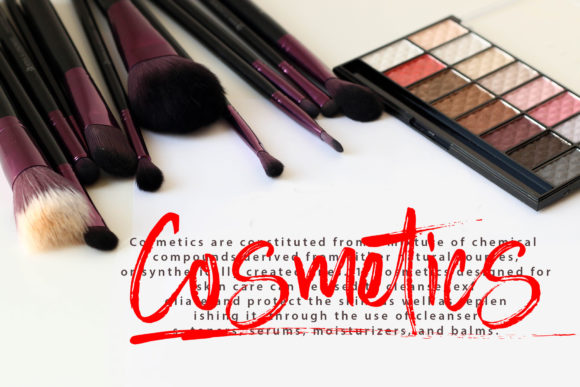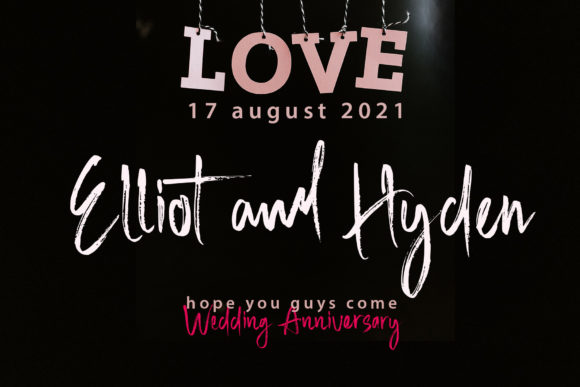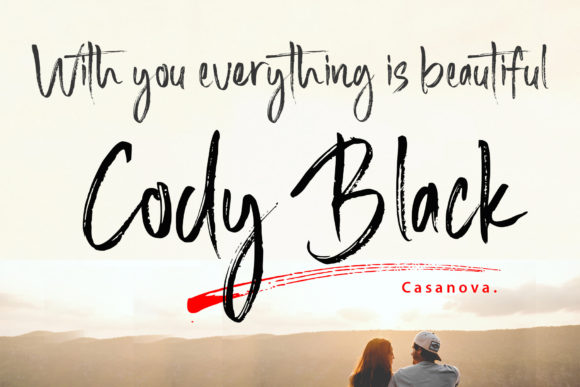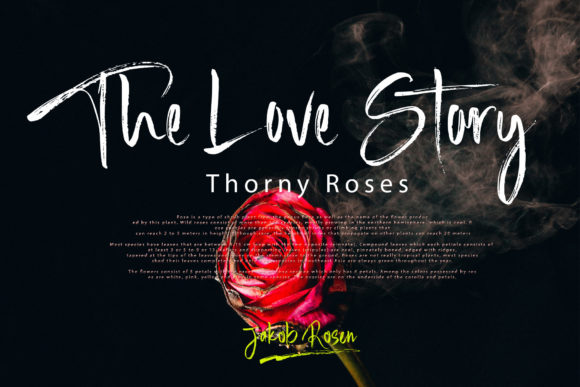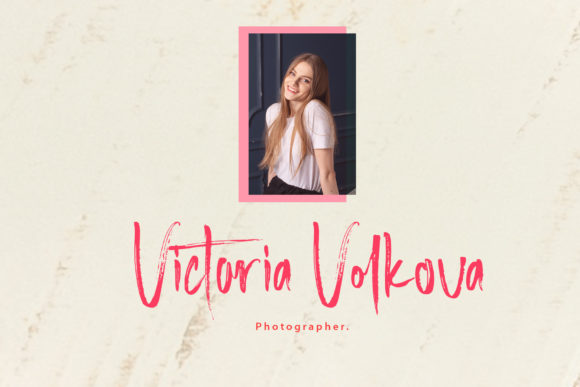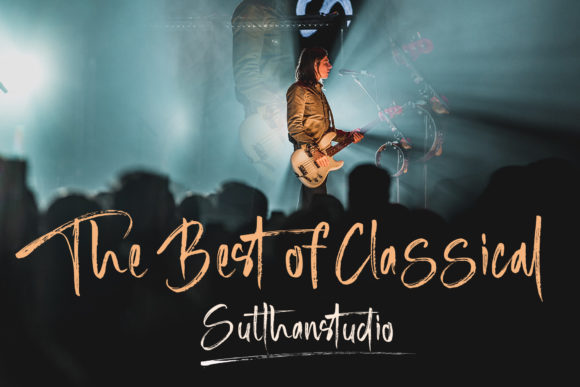
The Perfect Font to Elevate Your Creative Ideas
Have you ever been in the middle of a creative project, staring at your screen, and suddenly a spark of inspiration hits you? The words flow effortlessly, and the design comes together in a way that’s nothing short of magical. For designers like you, those moments are what make it all worth it.
That’s why we’re excited to introduce you to the Balicot Sweet Font, a charming script font that’s designed to bring a touch of whimsy and elegance to your most creative ideas. With its beautiful, brushed characters that seem to dance along the baseline, this font is sure to make your designs stand out. Plus, its PUA encoding means you can access all the amazing glyphs and ligatures with ease, giving you even more creative freedom.
Whether you’re a seasoned designer or just starting out, the Balicot Sweet Font is a valuable addition to your toolkit. Its unique style and versatility make it perfect for a wide range of projects, from invitations and posters to digital products and branding materials.
Balicot Sweet Font Key Features
- Font Family: Balicot Sweet
- Unique Characteristics: Hand-drawn, elegant, and modern design with subtle flourishes and decorative elements, suitable for titles, headings, and branding.
- Language Support: Supports a wide range of languages, including Latin-based scripts, Cyrillic, Greek, and more.
Balicot Sweet Font Review
First impressions count, and the Balicot Sweet Font does not disappoint. The first thing I noticed was its versatility – it can be used in a variety of contexts, from food labels to fashion brands, and it looks great in all of them. The font’s playful nature is balanced by a level of sophistication that makes it suitable for more formal applications. ✨ The curves and lines are well-designed, giving the font a unique feel that sets it apart from more generic fonts.
One of the standout features of the Balicot Sweet Font is its character set. It includes a wide range of glyphs, from basic Latin to more exotic languages, making it a great choice for international brands or projects. ✨ The font is also highly customizable, with options for bold, italic, and light styles, as well as ligatures and swashes.
- ⚠️ The font may not be suitable for all types of projects, particularly those that require a more serious or formal tone.
- ⚠️ Some users may find the font’s unique style overwhelming or difficult to read in certain contexts.
Overall, I’m impressed with the Balicot Sweet Font. Its versatility, customizability, and well-designed glyphs make it a great choice for designers looking for a unique and stylish font. While it may not be suitable for all projects, it’s definitely worth considering for those that require a playful and sophisticated touch.
Tips for Getting the Most Out of Balicot Sweet Font
To get the most out of Balicot Sweet Font, use it for:
- Creative and artistic projects.
- Designing invitations and other event materials.
Remember to pair Balicot Sweet Font with a clean and simple background to make your design stand out.